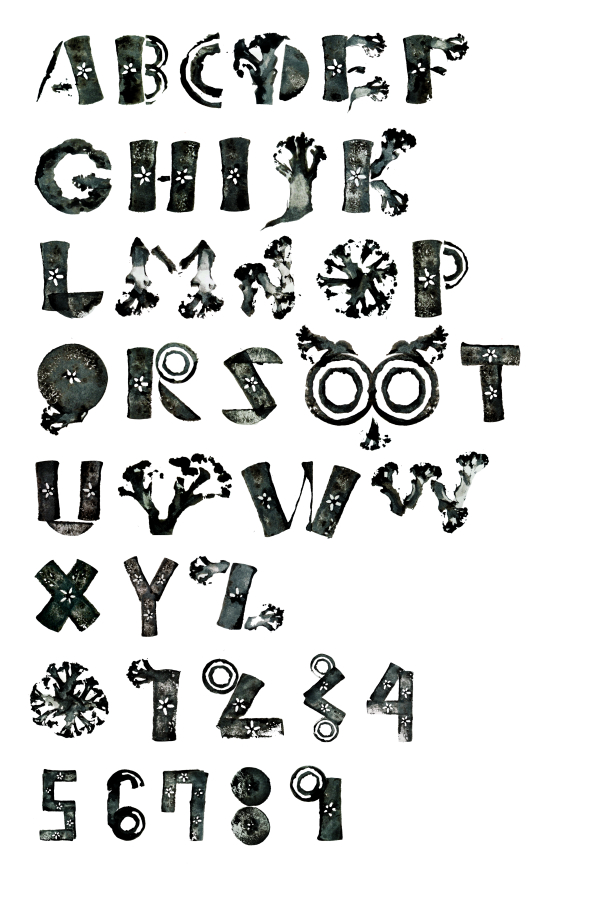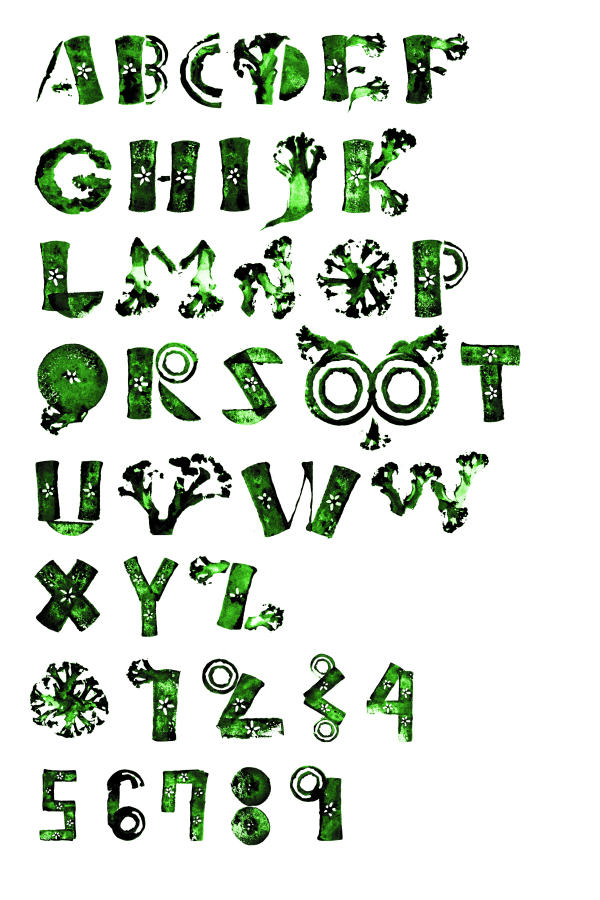
vegetable font
This is a modular accidental font, created by the prints of chopped carrots, apples, broccoli and cauliflower.
Designer: Anait
Publisher: Anait Khachatryan